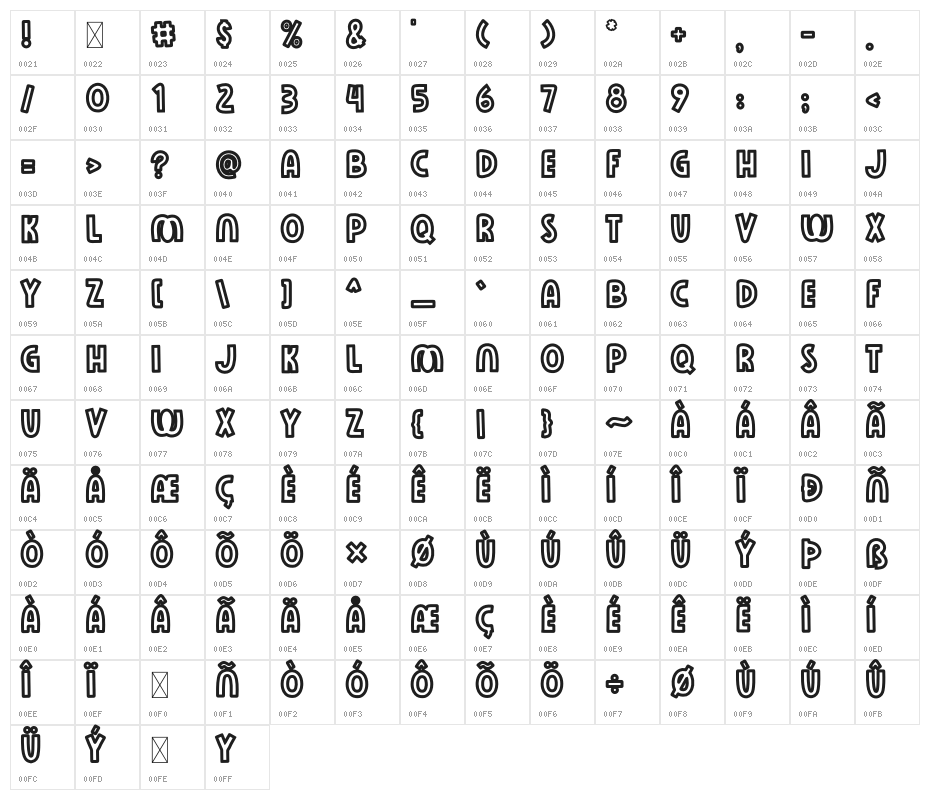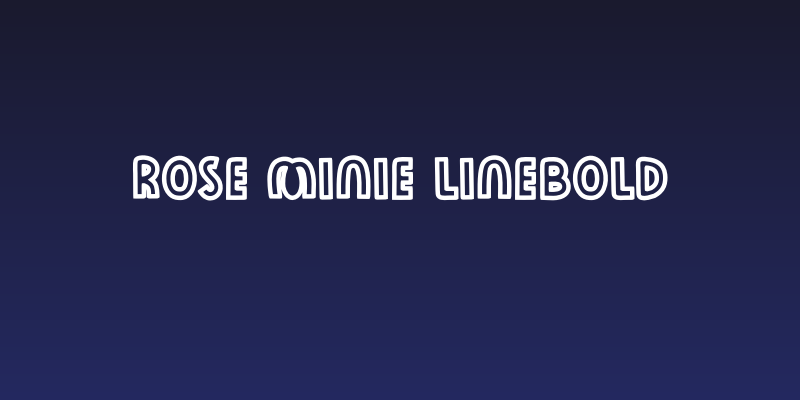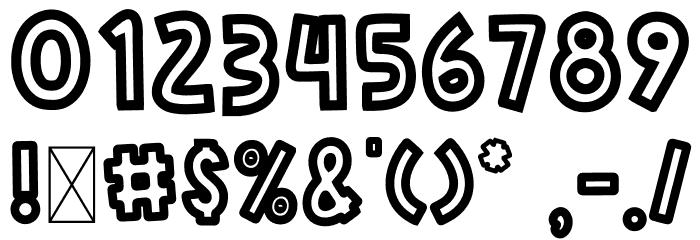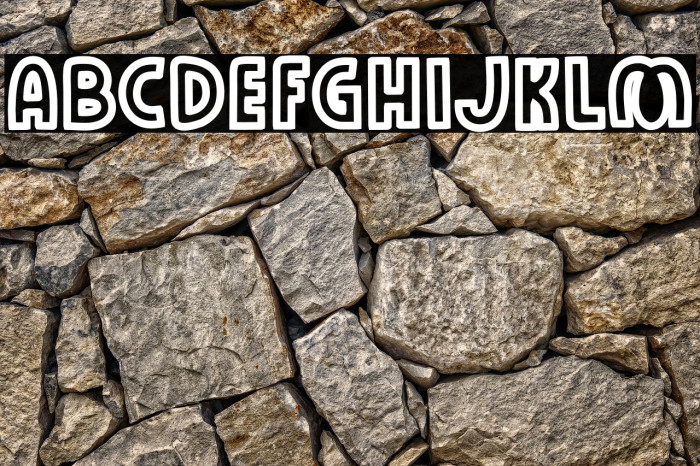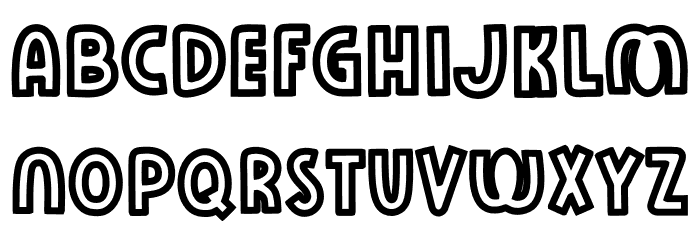
Rose Minie LineBold Font
Rose Minie LineBold Description
This font features a bold, playful design with a distinct outline style that gives each character a three-dimensional effect. The letters are uppercase and lowercase, with a consistent thickness throughout, creating a cohesive look. The numbers and special characters maintain the same bold outline, ensuring uniformity across all elements. The font's rounded edges and smooth curves contribute to its approachable and friendly appearance, making it suitable for creative and informal applications. Its unique style is eye-catching and can add a fun, dynamic element to any project.
| Overall Style | Playful, Modern |
| Proposed Projects | Ideal for children's books, playful branding, posters, and creative digital content. |